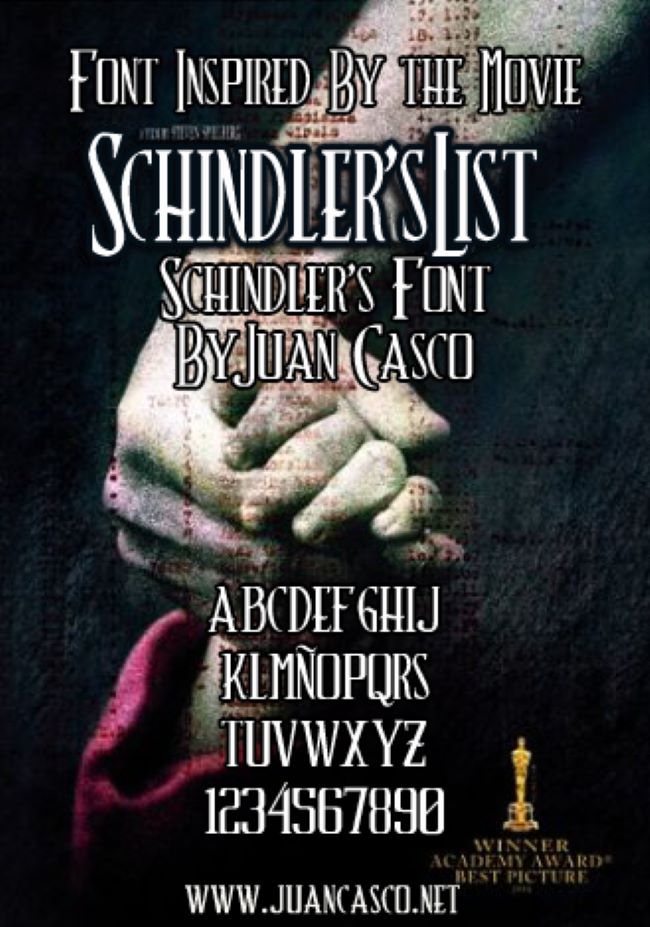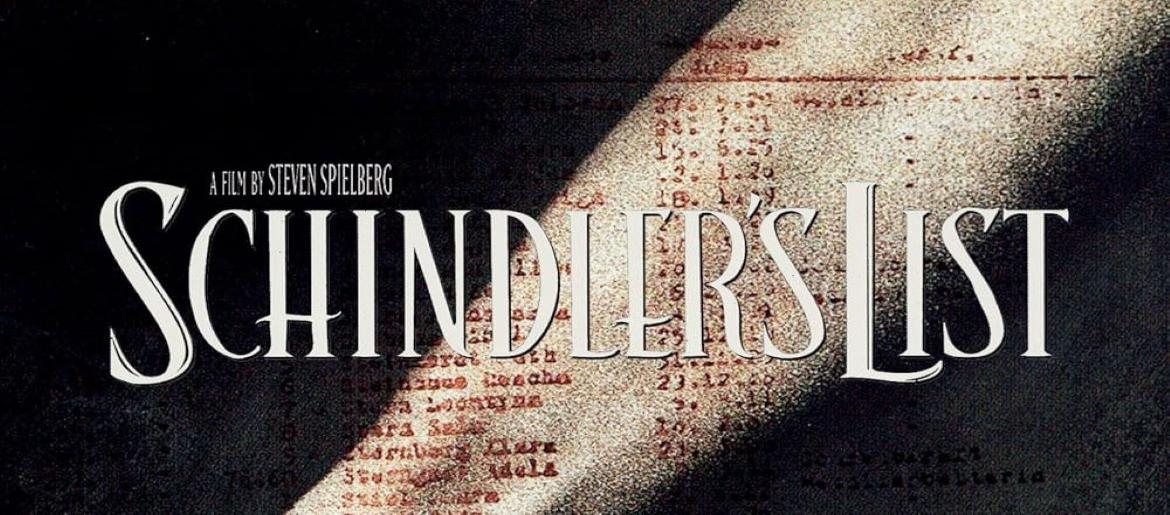
Schindler’s List Font
Schindler’s List Font captures the solemn elegance and emotional intensity of Steven Spielberg’s 1993 masterpiece. As one of the most powerful films in cinematic history, Schindler’s List tells a deeply human story of courage and compassion, and its typography plays a quiet yet profound role in expressing that tone. The refined, classical design of the Schindler’s List font perfectly mirrors the film’s historical gravity and emotional depth.
Unlike many modern or decorative movie typefaces, Schindler’s Font by Juan Casco stands out for its restraint and timeless beauty. Its serif structure evokes a sense of tradition, respect, and seriousness—echoing the film’s black-and-white visuals and its haunting narrative. Designers often turn to the Schindler’s List font when creating historical posters, tribute artwork, or projects that require a tone of dignity and remembrance.
Although there’s no officially released typeface tied to the movie, a widely appreciated fan-made version named Schindler’s Font successfully recreates the title’s elegant serif design. This version is frequently used by fans and graphic artists who wish to channel the same emotional and historical essence that defines the film.
The enduring fascination with the Schindler’s List font highlights how typography can embody emotion, storytelling, and memory. Much like the film itself, this font remains a timeless tribute to resilience, history, and humanity.